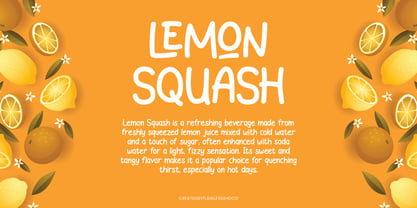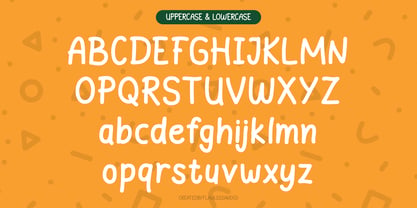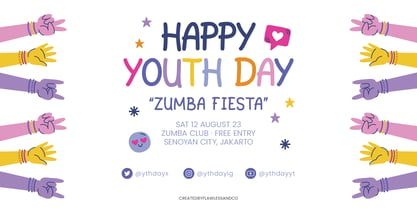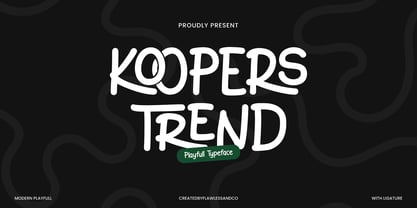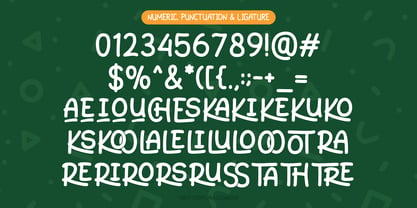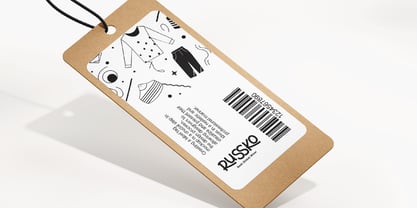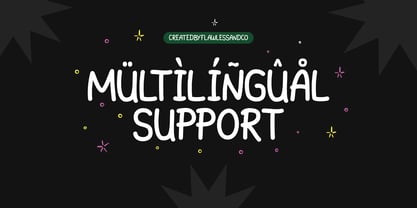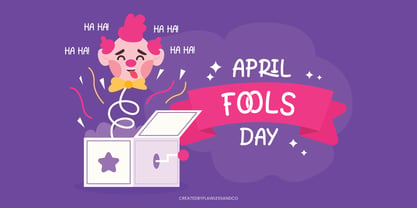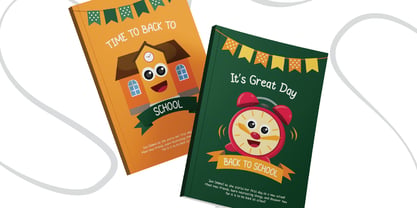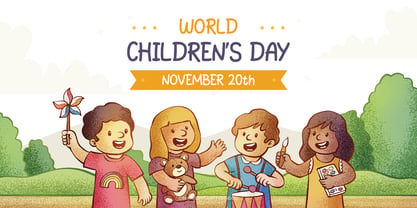
Koopers Trend
La familia tipográfica Koopers Trend fue diseñada por Achmad Yani y publicada por Flawlessandco. Koopers Trend contiene 1 estilos. Más información sobre esta familia
Koopers Trend is a handwritten display font that blends casual charm with a bold and cheerful personality. Inspired by retro pop aesthetics and modern lifestyle branding, Koopers Trend stands out with its rounded edges, smooth strokes, and hand-crafted vibe. Designed for projects that aim to feel fun, vibrant, and approachable, Koopers Trend is perfect for youthful branding, social media graphics, packaging, t-shirt designs, music posters, and more. Its quirky yet clean letterforms bring a lively rhythm and informal elegance to your compositions. Every character is drawn with a friendly attitude, offering a unique balance between playfulness and clarity—making your message feel both standout and personal.
Features :
Multilingual, Uppercase alphabet A-Z, Lowercase alphabet a-z, Numbers 0-9, Some punctuation, Alternates & Ligatures